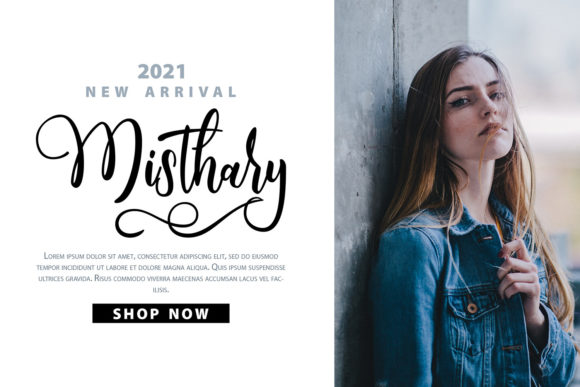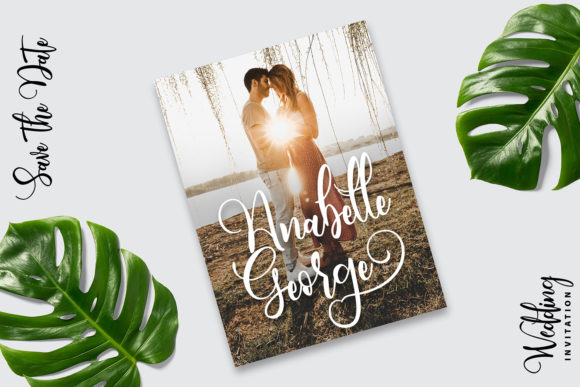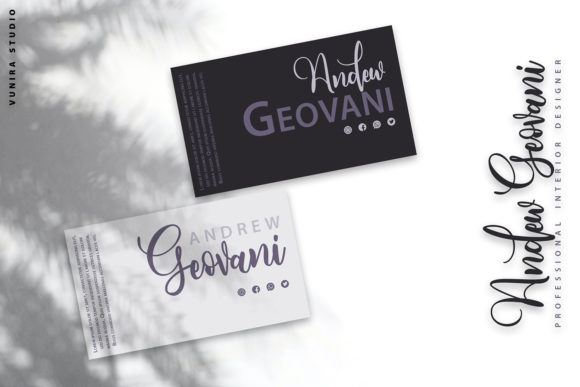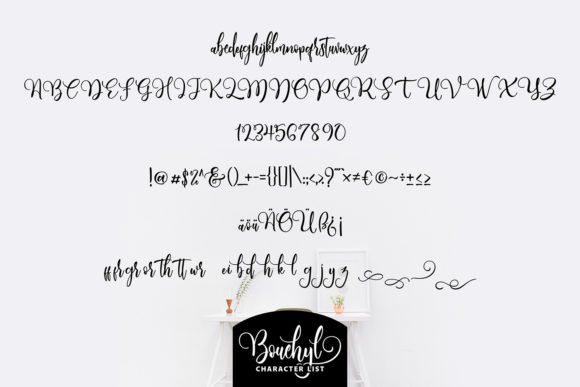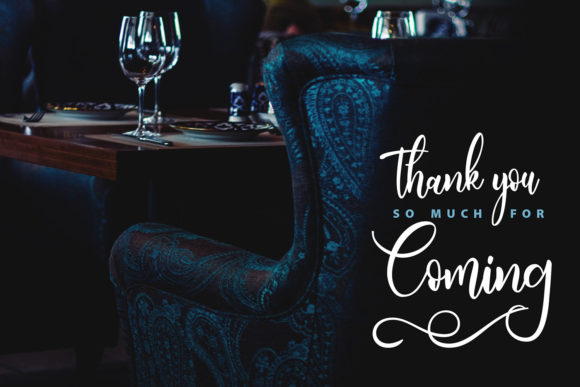
Unleashing the Art of Handwriting with Bouchyl | Unique Handwriting Script Font Font
Have you ever found yourself scribbling down a poem or a quote in a beautiful, flowing script, only to realize that it’s the perfect idea for a design project? That’s exactly what happened to many designers when they discovered Bouchyl | Unique Handwriting Script Font Font. This stunning font combines the elegance of calligraphy with the whimsy of handwriting, making it a dream come true for creatives.
Whether you’re designing invitations, greeting cards, branding materials, or business cards, Bouchyl | Unique Handwriting Script Font Font is the perfect addition to your toolkit. Its unique style is not only visually striking, but also adds a touch of personality to any project. With its versatility and beauty, it’s no wonder that designers are flocking to use Bouchyl | Unique Handwriting Script Font Font in their work.
Bouchyl | Unique Handwriting Script Font Key Features
- Font Style: Unique Handwriting Script Font, elegant and cursive
- Character Set: Includes uppercase and lowercase letters, numbers, and punctuation marks, allowing for a wide range of creative possibilities
- Unique Characteristics: Distinctive flourishes and swashes add a touch of sophistication and elegance to any design
Bouchyl Font Review
First of all, let’s talk about the good stuff. ✨ The Bouchyl handwriting script font is a real showstopper, and I love the way it adds a personal touch to any design project. The font is highly customizable, allowing you to adjust the size, color, and even the spacing between letters. This level of control is a must-have for any serious designer.
The font is also incredibly versatile, suitable for a wide range of projects, from logos and branding to social media graphics and even wedding invitations. The unique, handwritten style is sure to capture attention and leave a lasting impression.
- Unique, handwritten style
- Versatile and suitable for a wide range of projects
- Easy to read and use
- May not be suitable for large blocks of text due to its handwritten nature
- Can be difficult to read at very small font sizes
- Lack of bold and italic styles may limit its use in certain situations
In conclusion, the Bouchyl handwriting script font is a fantastic addition to any designer’s toolkit. While it may have some limitations, its unique style and high level of customizability make it a valuable asset for any project. With a little creativity and experimentation, you can unlock the full potential of this amazing font and take your designs to the next level.
Tips for Getting the Most Out of Bouchyl
Use Bouchyl to add a personal touch to your designs, such as:
- Creating custom invitations or event branding
- Designing social media graphics or ads
- Adding a unique touch to your resume or portfolio
Bouchyl is perfect for:
- Personalized gifts and cards
Q: What is the recommended font size for optimal readability with the Bouchyl font?
The recommended font size for optimal readability with the Bouchyl font is between 12pt and 24pt. This range allows for clear and legible text while maintaining the unique character of the Bouchyl script font.